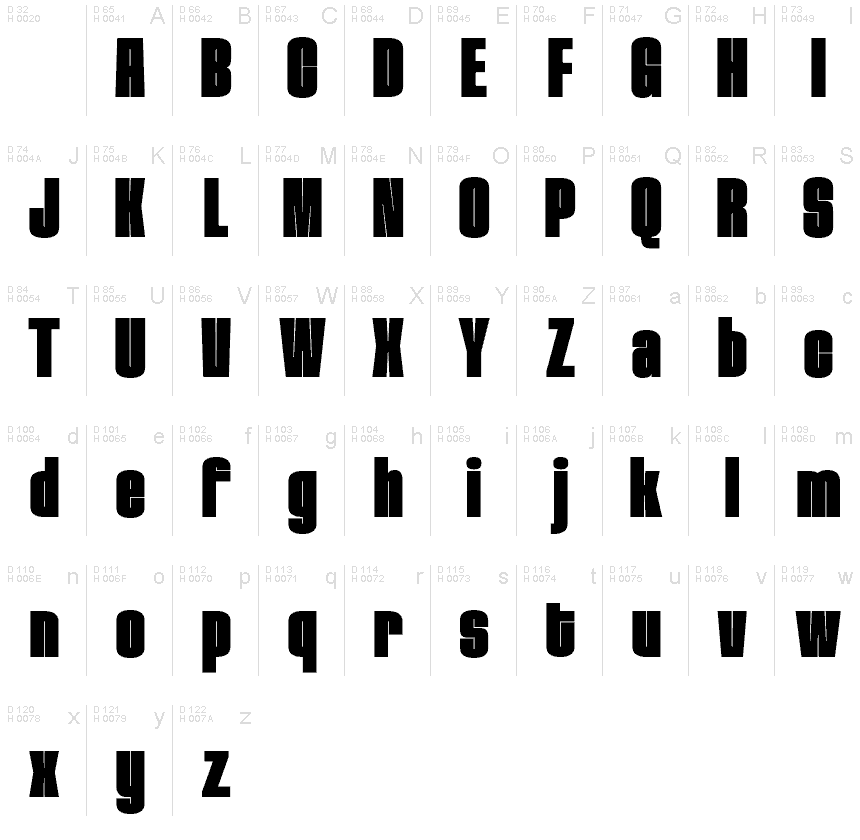
Pavelise Demo Regular
Pavelise font by Craft Supply Co is a bold, condensed sans-serif font with a strong presence. Featuring geometric influences, its robust and modern aesthetic creates an impactful appearance. The tidy, narrow letter arrangement adds to its curated and clean look.